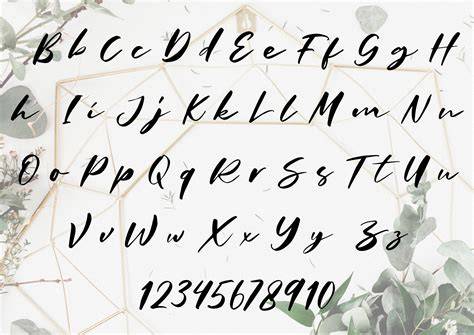
Get Ready To Embrace The Handwritten Fonts Of 2023
Over the last few years, there has been an increasing trend of incorporating handwritten fonts into web designs. From corporate logos to fonts used in text, writing in a handwritten style has become quite popular. In 2023, this trend is only going to increase, and it could be the year that the handwritten font craze really takes off.
Why Handwritten Fonts Are Popular
Handwritten fonts are incredibly versatile and can be used in a variety of different contexts. For example, they can be used to create a more personal or intimate feel, which is why they are so popular in web designs. They can also be used to create a sense of warmth and friendliness, which is why they are often used for logos. Plus, handwritten fonts are often more expressive than standard fonts, making them more visually interesting.
Choosing the Right Handwritten Fonts
When choosing a handwritten font, it’s important to select one that is appropriate for the project you’re working on. For example, a formal font might not be the best choice for a website that is meant to be fun and inviting. Similarly, a font that is too informal might not be appropriate for a corporate logo. Thus, it’s important to take the time to select the right font for your project.
Using Handwritten Fonts Effectively
When using handwritten fonts, it’s important to remember that they should be used sparingly. Too many handwritten fonts can create a cluttered and unappealing look. Thus, it’s best to use handwritten fonts as accents rather than as the main font for a design. For example, using a handwritten font for a logo or for a headline can add some visual interest without overwhelming the design.
The Future of Handwritten Fonts
It’s clear that handwritten fonts are going to continue to be popular in 2023 and beyond. As more people become aware of the power of handwritten fonts, they will be increasingly used as accents in designs. Thus, it’s important to be familiar with how to select and use handwritten fonts effectively. By doing so, you can ensure that your designs have the maximum impact.